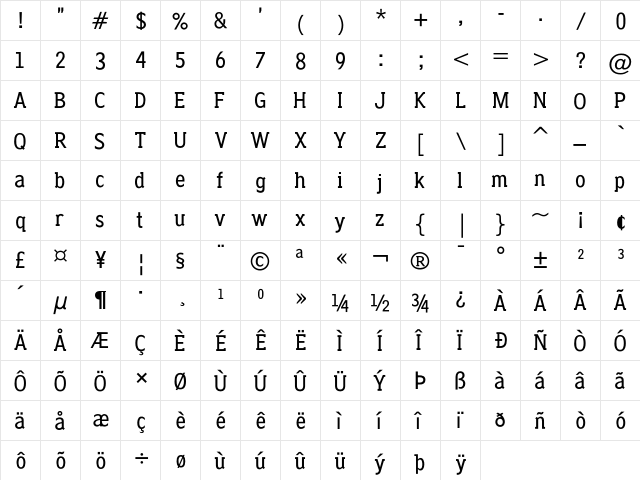
Clique Serif
| Style | Serif |
Design Context for Clique Typeface
Clique brings classic typographic sensibility to the table — its serifs and measured letterforms reflect centuries of print heritage.
Pro Tip: Set Clique with slightly loose tracking in headlines to let each letterform's detail read clearly at display sizes.